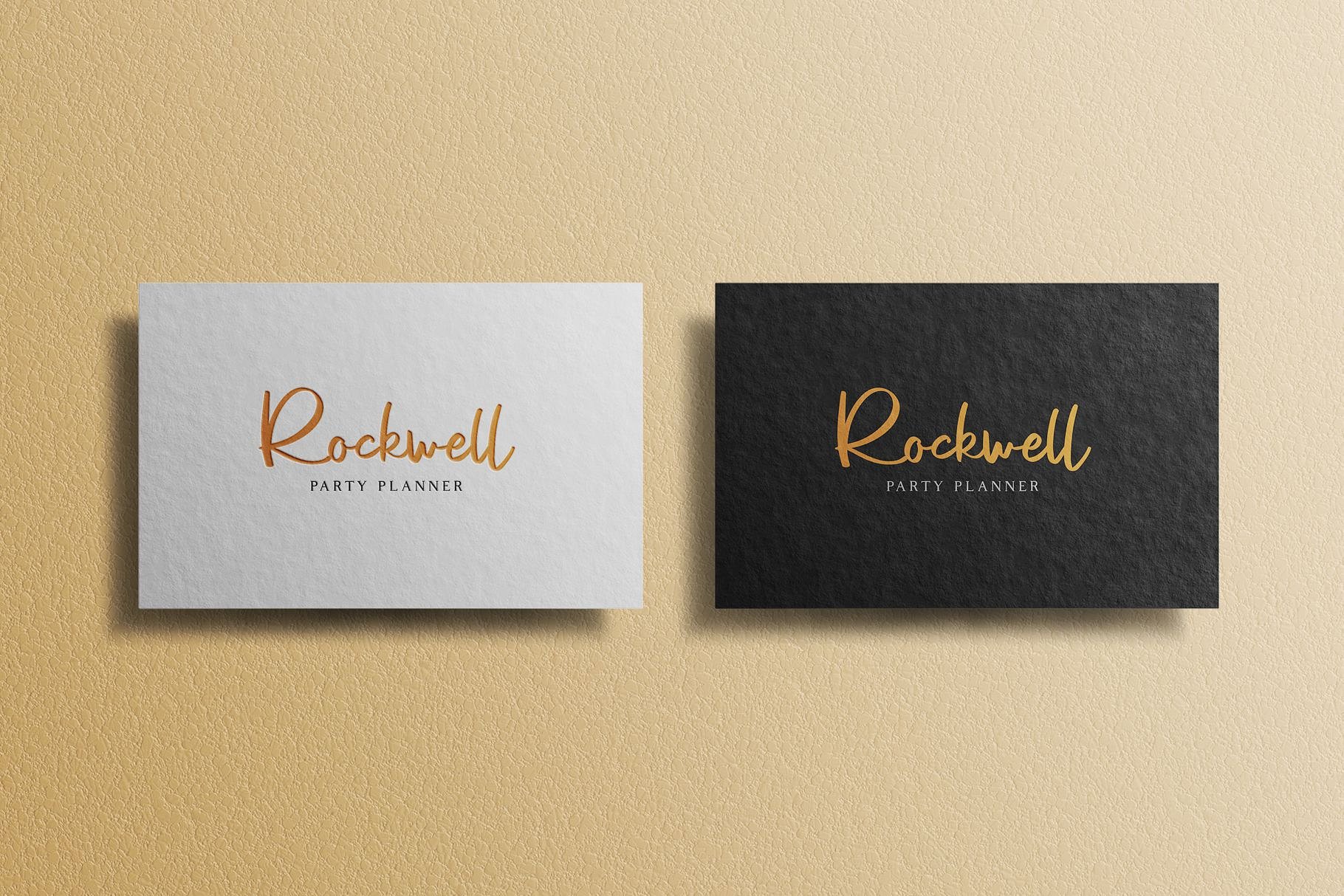
Sweet Buttermilk Font Duo
A stunning pair of luxury script and sans fonts, designed to contrast & compliment each other with elegant beauty and contemporary style. Introducing Sweet Buttermilk. It’s designed and shared by Craft Supply Co.. Sweet Buttermilk is an handwritten script font based on the expression of real handwriting, lets you transform type into an exciting and beautiful piece of work. The irregular, hand-lettered look adds a real human touch to things and comes along with a lot of loving details. Combine all font-styles the way you want, add some ornamental swashes or banners and even a single word becomes magnificent.